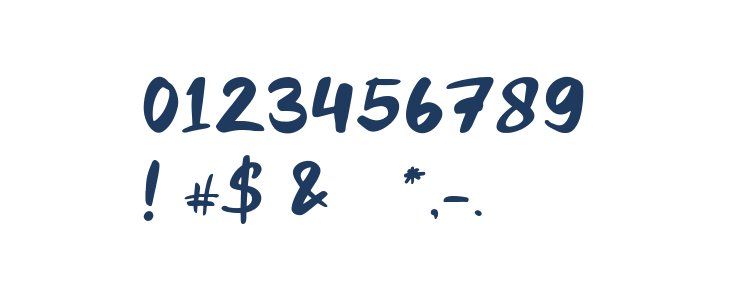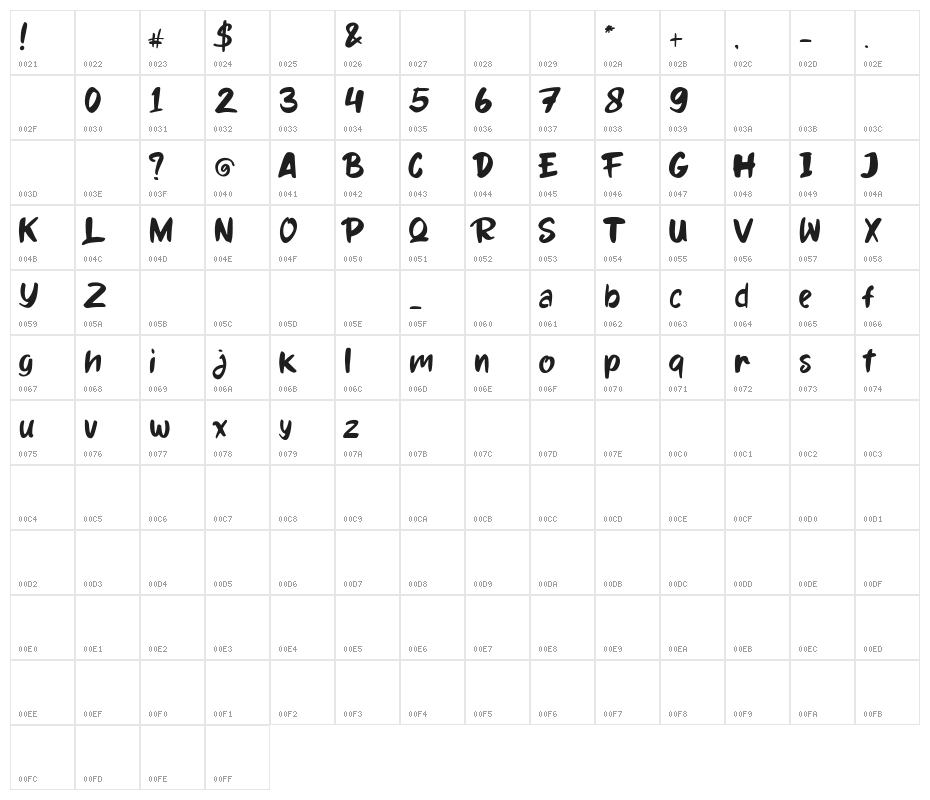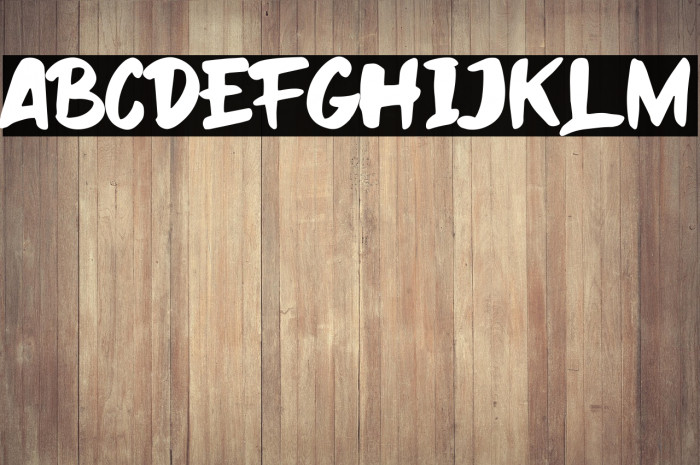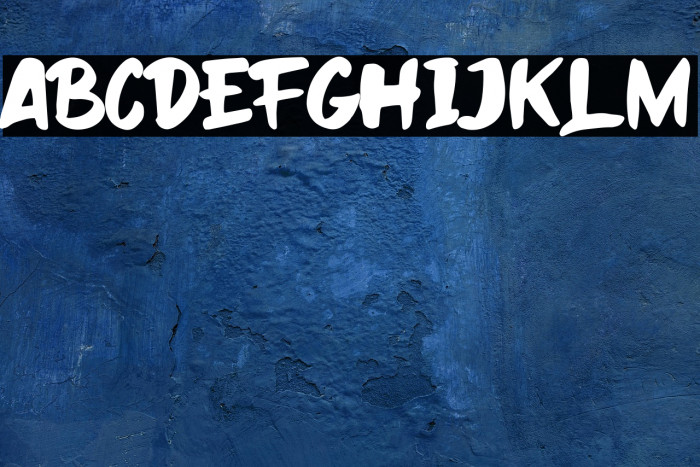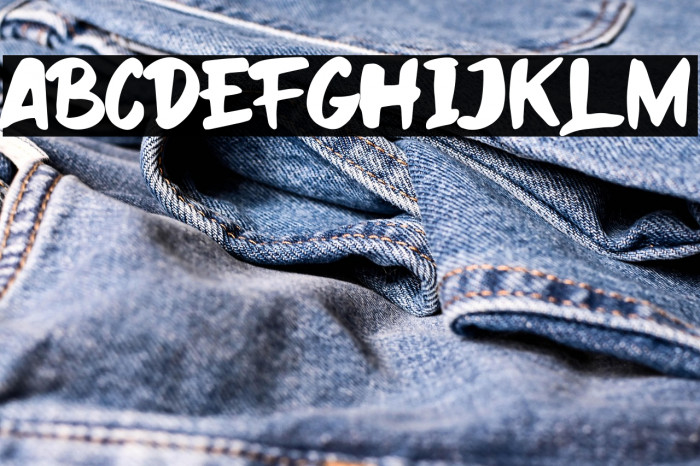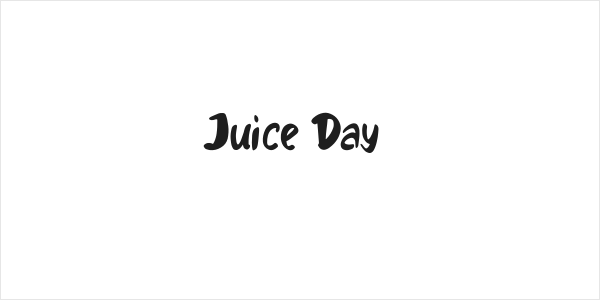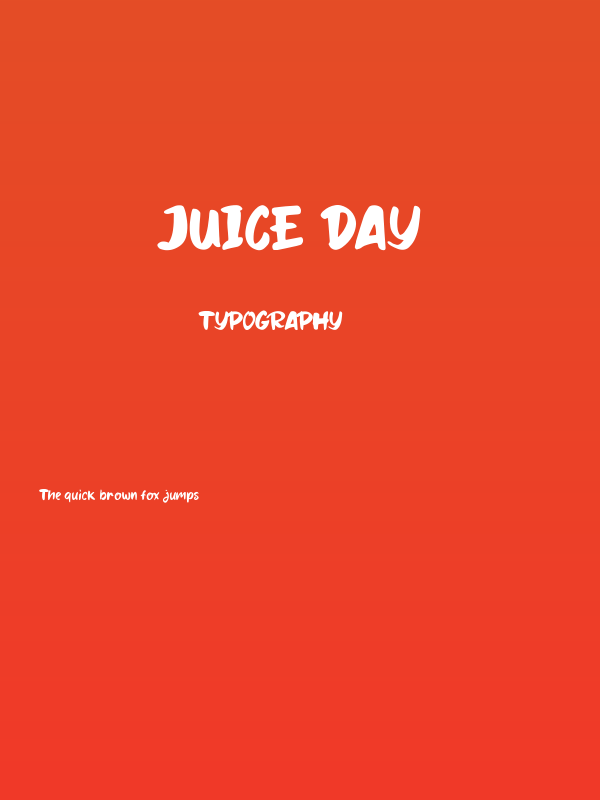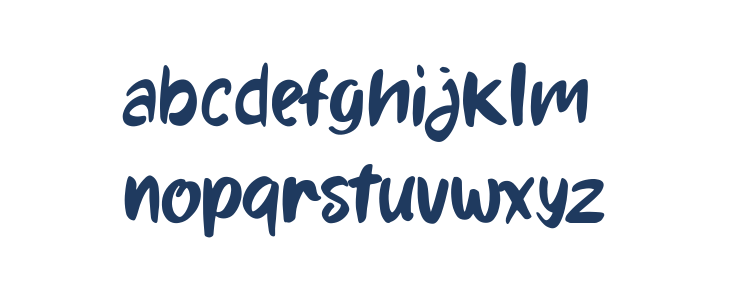
Juice Day Font
Juice Day Description
This font features a bold and playful handwritten style, characterized by its thick strokes and energetic curves. The letters are slightly slanted, giving a dynamic and informal appearance. The uppercase and lowercase letters maintain a consistent style, with rounded edges and a smooth flow. The numerals and special characters are equally bold, ensuring readability and a cohesive look across all characters. This font exudes a sense of fun and creativity, making it ideal for projects that require a lively and engaging typeface.
| Proposed Projects | Perfect for children's book covers, playful branding, greeting cards, and social media graphics. |